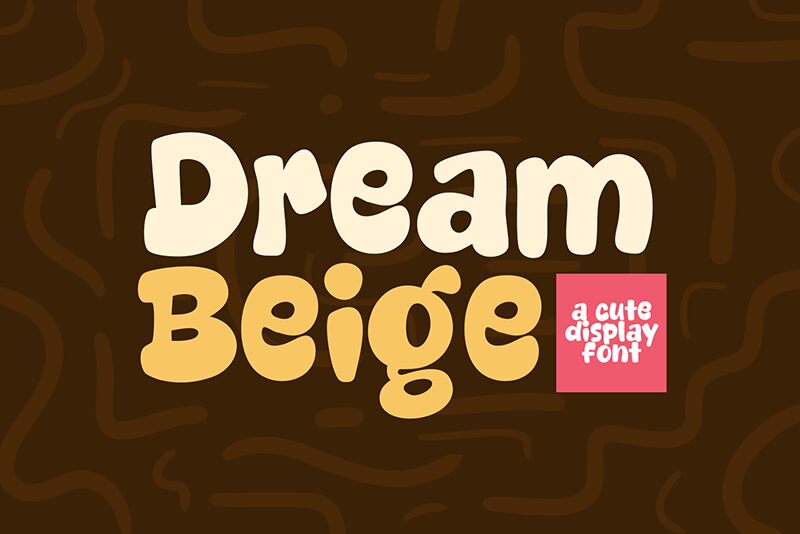
Dream Beige font by Khurasan is a bold display typeface that offers retro-inspired cartoon aesthetics with rounded, whimsical features. Thick and chunky in appearance, its playful nature makes it one natural choice for any sort of fun project whether headings, subheadings, posters, or other similar needs.
Overall Dream Beige is cute and versatile whether it’s used on t-shirts, titles/headers, social media quotes/images/cards/ads, brochures or flyers. Bigger prints like billboards or those for packaging and branding can also heavily benefit from this completely free typeface.